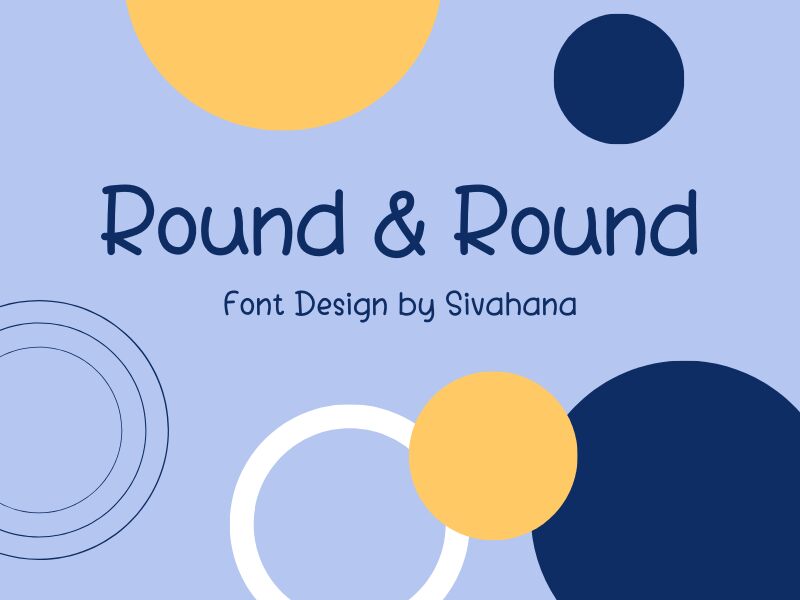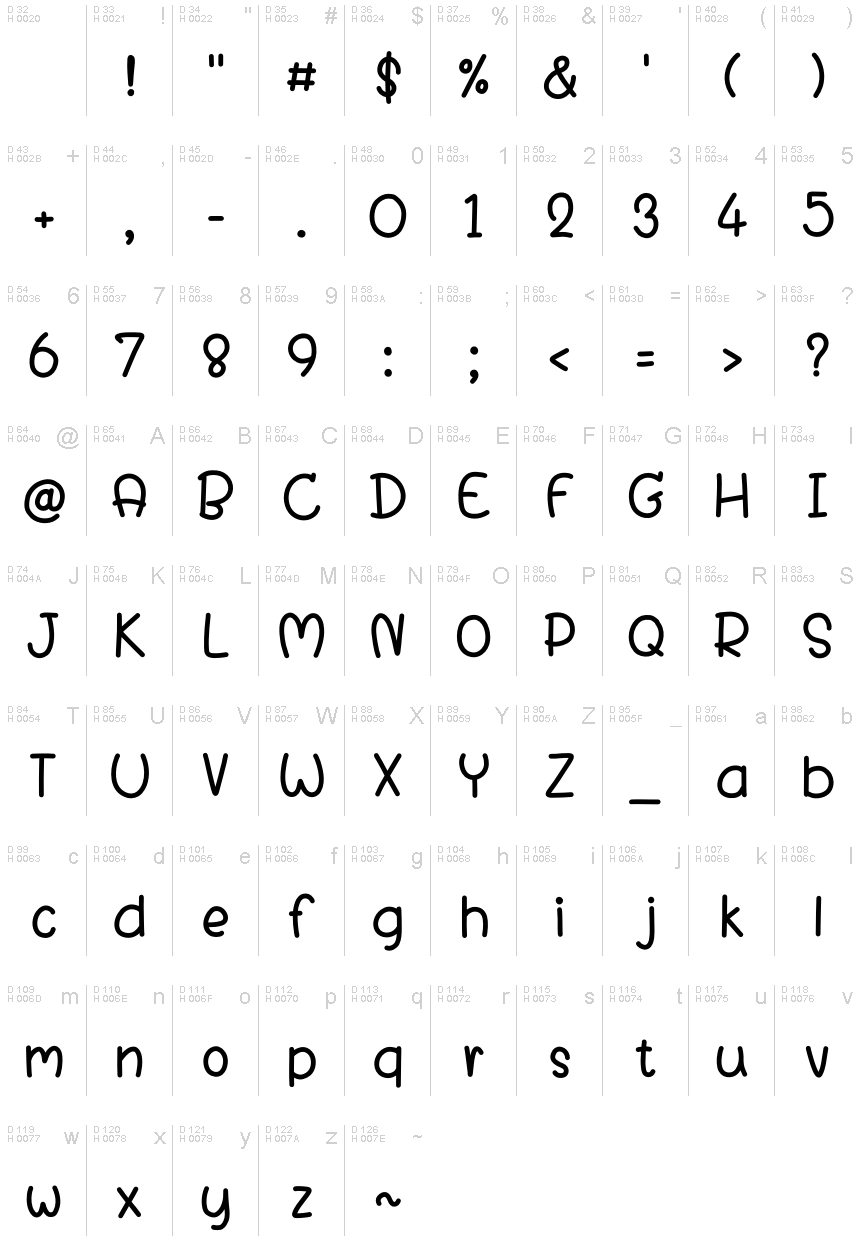
Round and Round Regular
Round and Round, a captivating display font crafted by Sivaporn Yutitham, exudes a delightful, whimsical charm. With its playful, cartoon-inspired aesthetic, this font captivates the eye with its rounded, organic letterforms that convey a sense of warmth and approachability. The distinctive, fluid strokes and gentle curves evoke a sense of playfulness and joy, making it an excellent choice for projects seeking to infuse a touch of lighthearted character.
This font's versatility shines through, making it a versatile choice for a wide range of applications. From children's books and educational materials to branding, packaging, and digital interfaces, Round and Round's charming personality can lend a delightful touch to any project. Its adaptability ensures that it can seamlessly integrate into diverse design contexts, allowing creators to bring a touch of endearing character to their work.